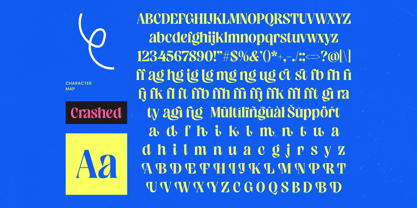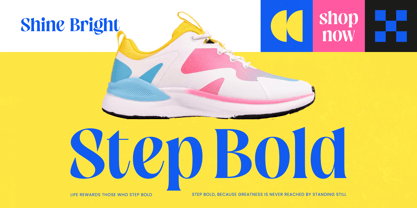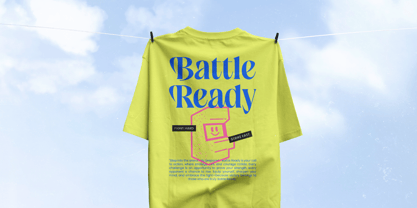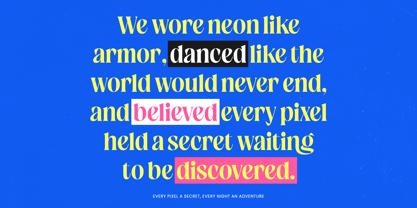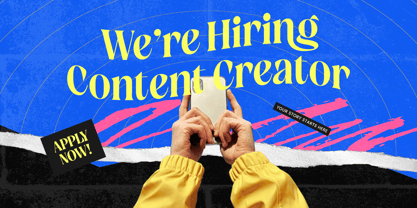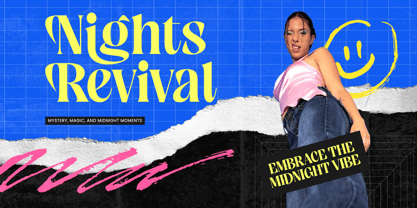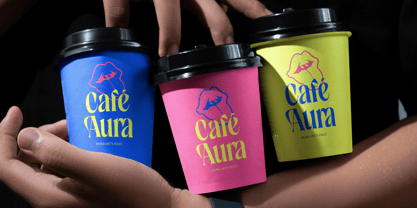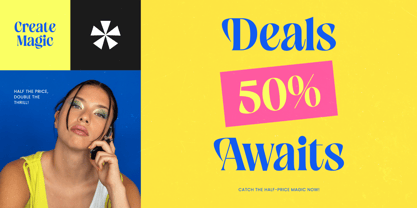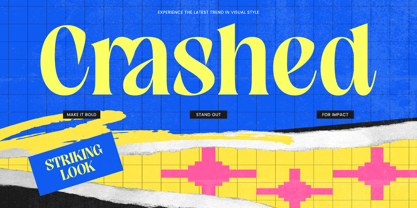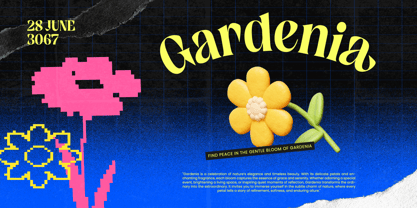
Crashed
by Timelesstype Studio
The Crashed Font Family was designed by Heru Utama Putra and published by Timelesstype Studio. Crashed contains 2 styles and family package options. More about this family
Crashed – Bold Tall Serif, a masterpiece of high-contrast typography. This premium serif font demands attention through its elongated letterforms and bold strokes, making it an essential asset for a modern aesthetic. By blending classic serif traditions with a contemporary edge, Crashed – Bold Tall Serif ensures your headlines remain unforgettable and authoritative in any professional setting.
Perfectly engineered for high-impact storytelling, Crashed – Bold Tall Serif excels in luxury branding, high-end packaging, and editorial design where visual impact is paramount. Whether you are crafting a fashion magazine or a premium product label, this typeface is perfect for creating a high-fashion look. Its refined silhouette allows it to shine in large-scale displays, providing a versatile solution for any high-end project.